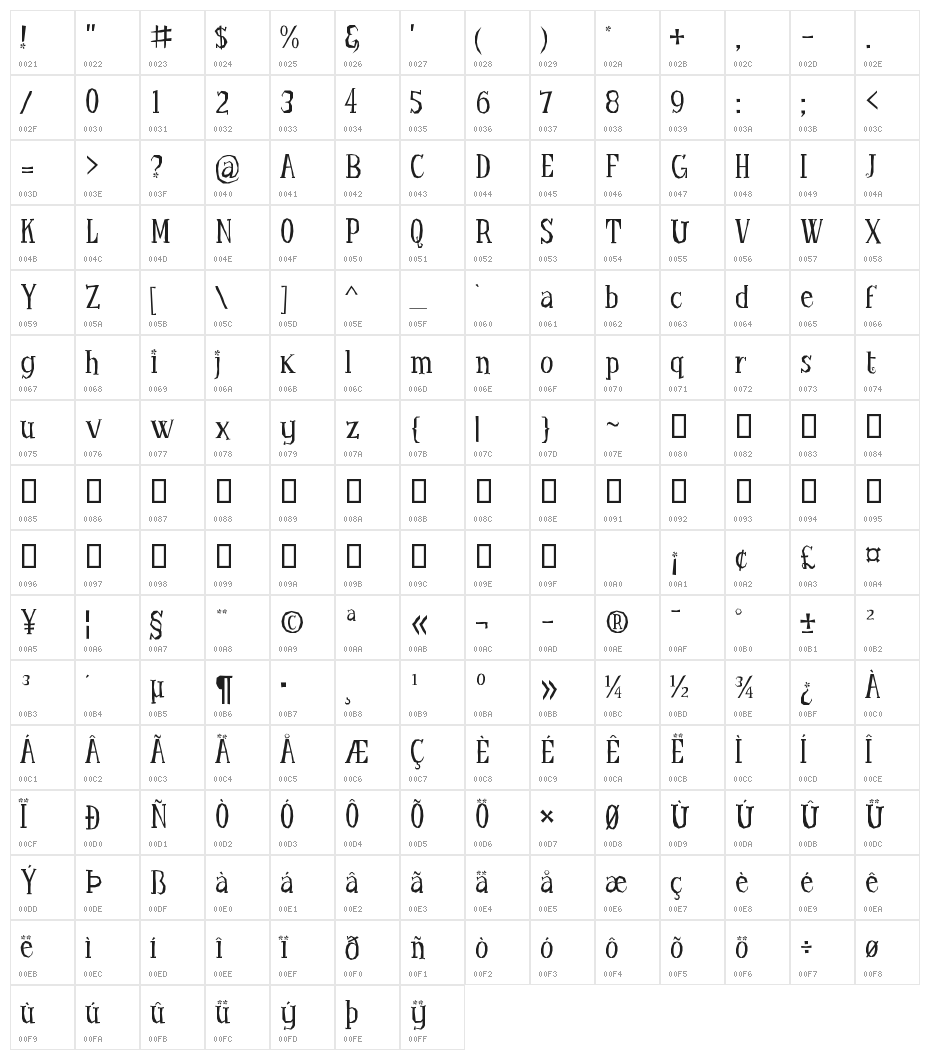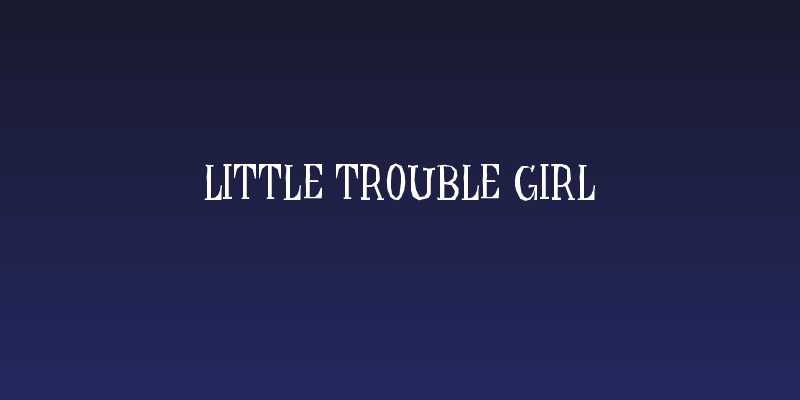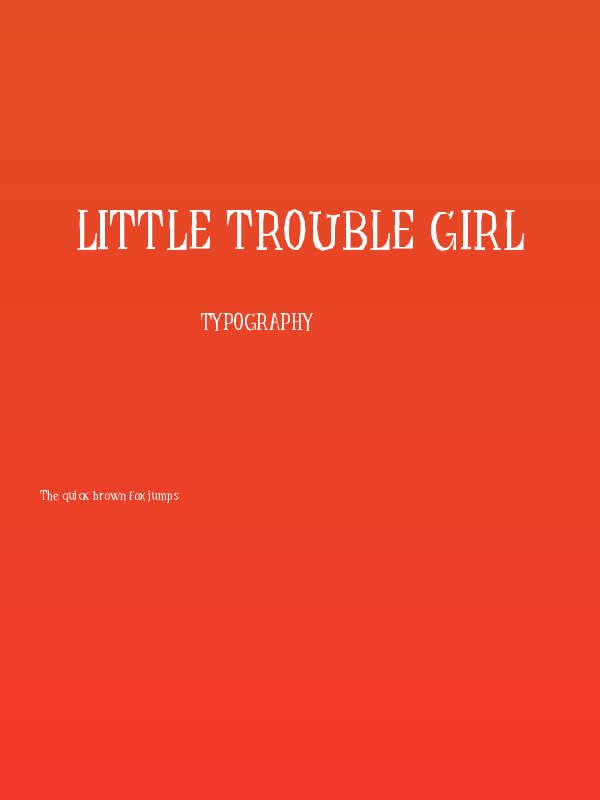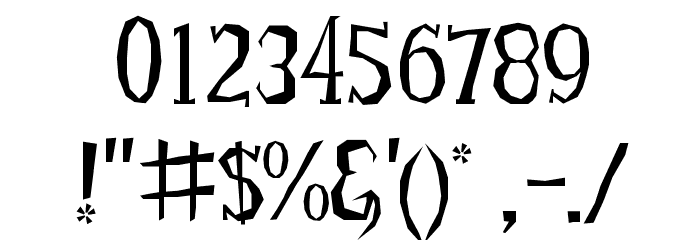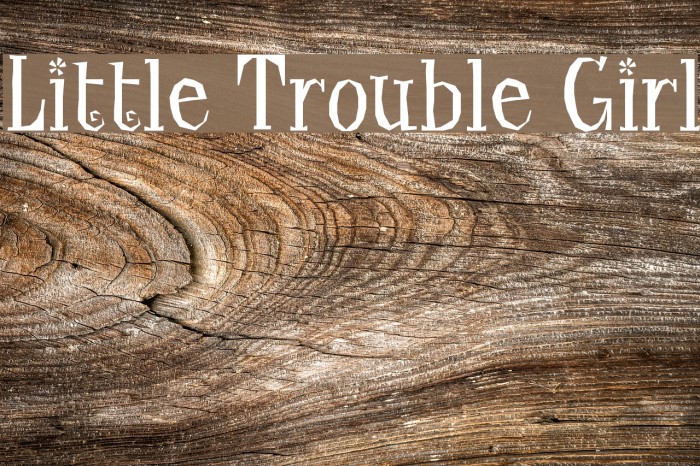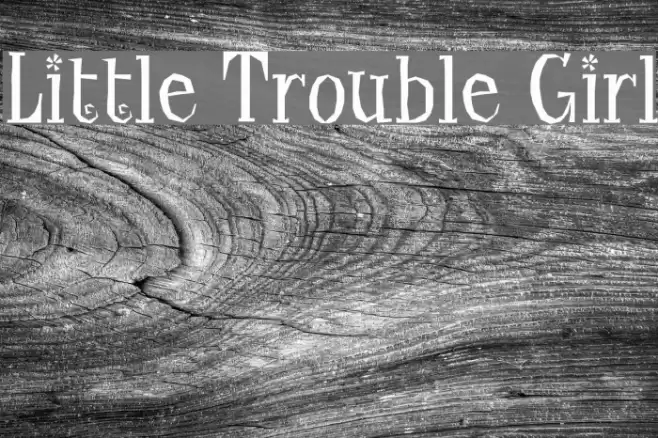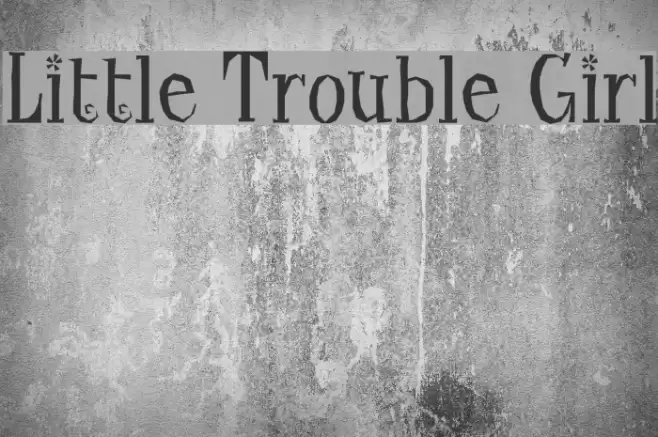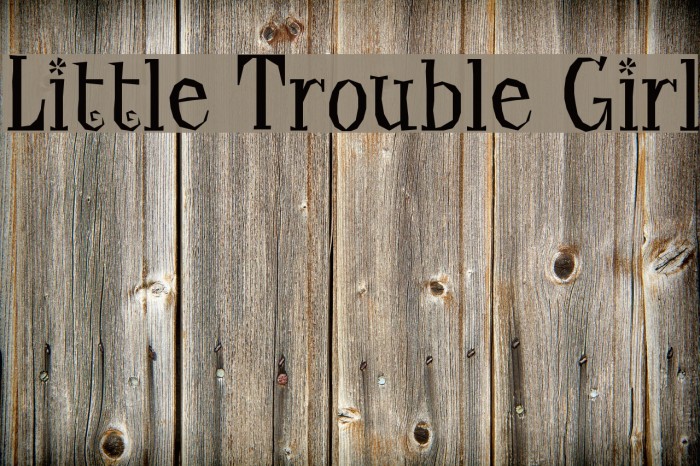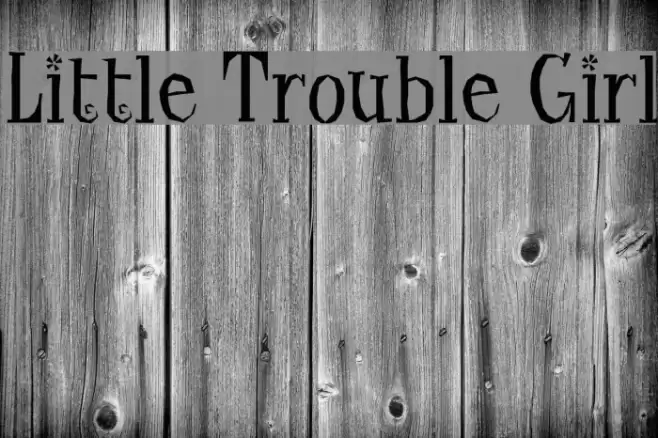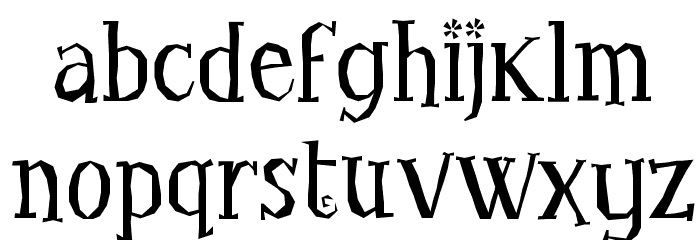
Little Trouble Girl Font
Little Trouble Girl Description
This font features a distinctive, playful style with uneven, jagged edges that give it a hand-drawn, whimsical appearance. The uppercase letters are bold and slightly irregular, while the lowercase letters maintain a quirky charm with unique character shapes. Numbers and special characters follow the same playful design, adding to the overall cohesive look. The font's irregularity and boldness make it stand out, perfect for projects that require a touch of creativity and fun. The strokes vary in thickness, adding a dynamic feel to the text.
| Overall Style | Whimsical, Artistic |
| Proposed Projects | Ideal for children's book covers, playful branding, creative posters, and artistic invitations. |